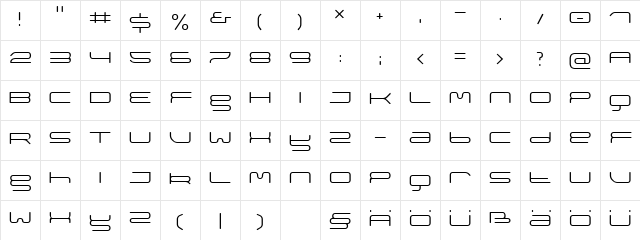
megathin Regular Font Preview
megathin Regular
megathin Regular Font Details
Design Context for megathin Typeface
megathin offers clean, dependable letterforms without strong stylistic allegiance, making it a practical choice for designers who need flexibility. Its slender proportions lend an understated elegance to any composition.